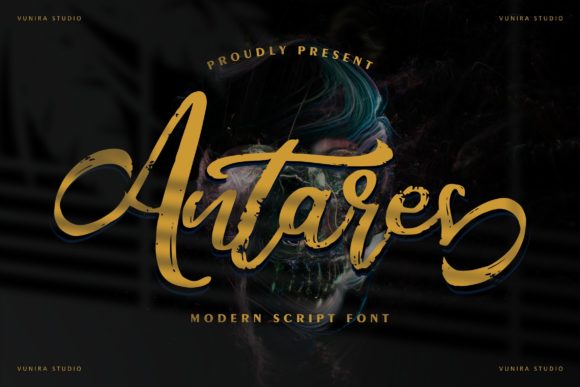
The Antares Font: A Designer’s New Best Friend
I still remember the design project that led me to discover the Antares font. I was working on a fashion branding campaign, and my client wanted a font that exuded elegance and sophistication. I had spent hours scouring the internet for the perfect font, but nothing seemed quite right. That was when I stumbled upon Antares, a ravishing, brushed script font that stole my heart. Its smooth curves and effortless flow made it an instant favorite, and I knew I had found the perfect fit for my project.
An Honest Review: What I Love (and What to Watch Out For)
So, what makes Antares so special? Here are a few things I love about this beautiful font:
• ✨ Smooth, flowing curves that give it a luxurious feel
• ✅ Perfect for fashion branding, editorial designs, and high-end projects
• 💫 Highly legible, even at smaller font sizes
• 🎨 Versatile and works well with a variety of design styles
Of course, no font is perfect, and Antares has a few quirks to watch out for:
• 🤔 May not be the best choice for body text or long paragraphs (it’s more suited for headlines and titles)
• ⚠️ Some users have reported issues with kerning on certain letter combinations
The Story Behind Antares
Antares was designed by a team of typographers who wanted to create a font that embodied the elegance and sophistication of high-end fashion. Inspired by the curves and lines of handwritten scripts, Antares is a beautiful blend of traditional and modern typography. Whether you’re a designer, craftsperson, or creative hobbyist, Antares is sure to become a favorite in your font library.
What is the Antares font? Antares is a beautiful, brushed script font perfect for fashion branding, editorial designs, and high-end projects.
Is Antares suitable for body text? While Antares is highly legible, it’s more suited for headlines and titles. For body text, you may want to choose a different font.
Does Antares support OpenType features? Yes! Antares supports OpenType features, including glyphs, stylistic alternates, and more.